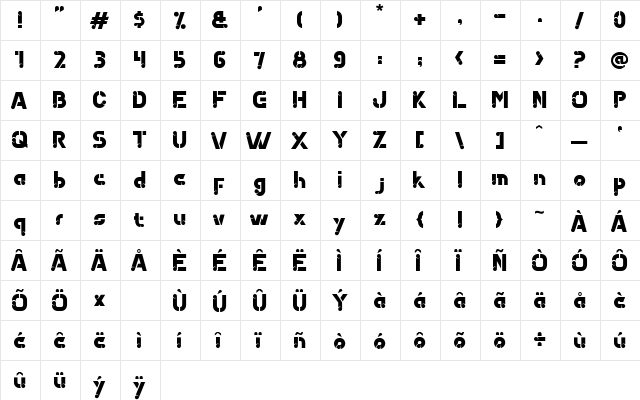
Qoubizza Regular
Design Context for Qoubizza Typeface
Qoubizza is a composed and adaptable typeface that performs quietly and consistently across a wide range of design contexts.